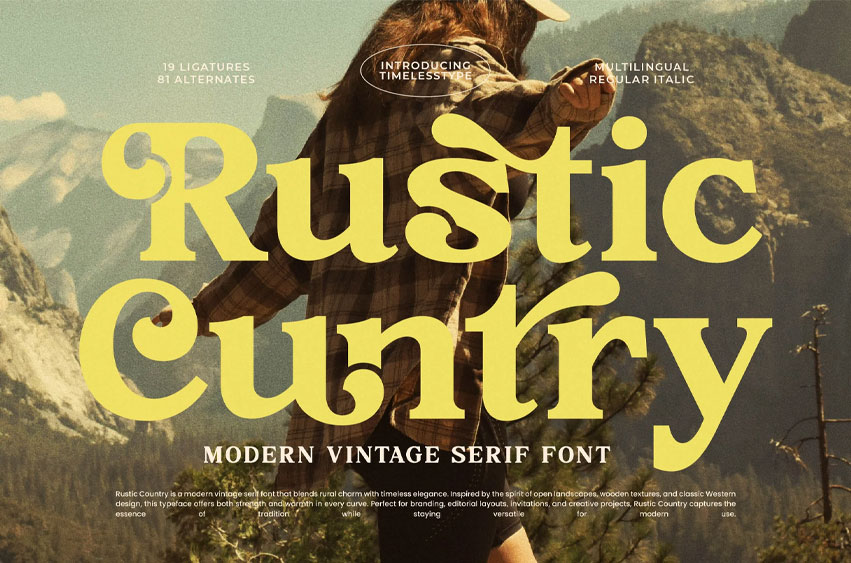
Rustic Cuntry Font
Rustic Cuntry Font is a modern vintage serif font that blends rural charm with timeless elegance. Inspired by open landscapes, warm wooden textures, and classic Western aesthetics, this typeface delivers strength, character, and inviting warmth in every curve. Its bold structure and expressive serifs make it perfect for branding, editorial layouts, event posters, farmhouse-style products, rustic packaging, invitations, and creative storytelling projects.
With 19 ligatures and 81 stylistic alternates, Rustic Cuntry gives you the flexibility to craft authentic visual identities that feel handcrafted yet refined. Supporting multilingual characters and available in Regular + Italic styles, it stays adaptable across modern design needs.